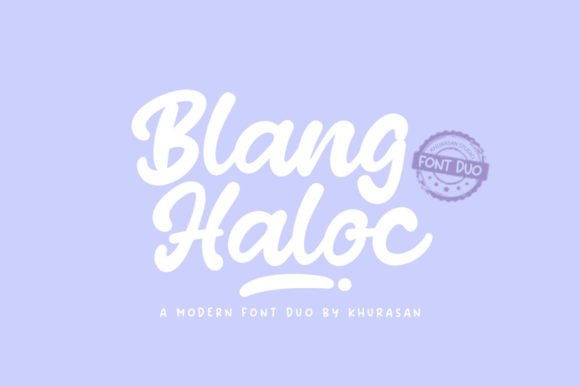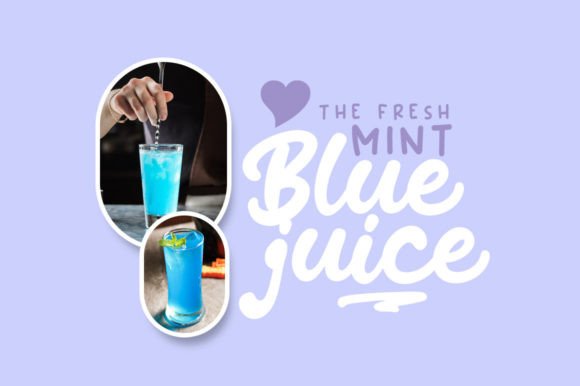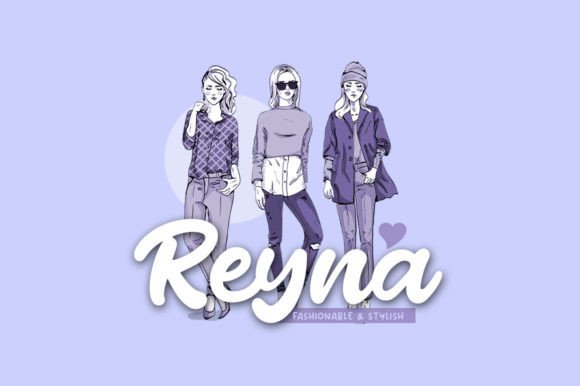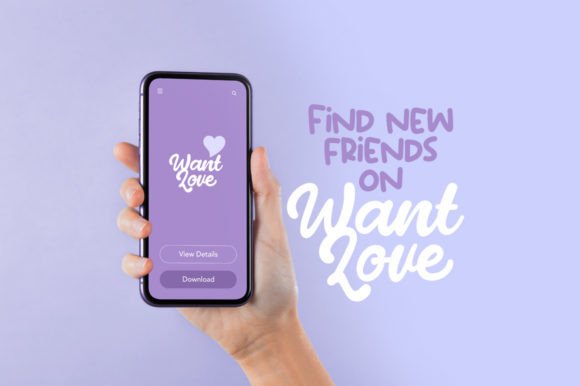
About Blang Haloc Duo
Blang Haloc is a fun handwritten font duo (script and display) perfect for posters, logos, magazines, book covers, banners, and many more! Get this amazing typeface, and use it to create lovely designs!